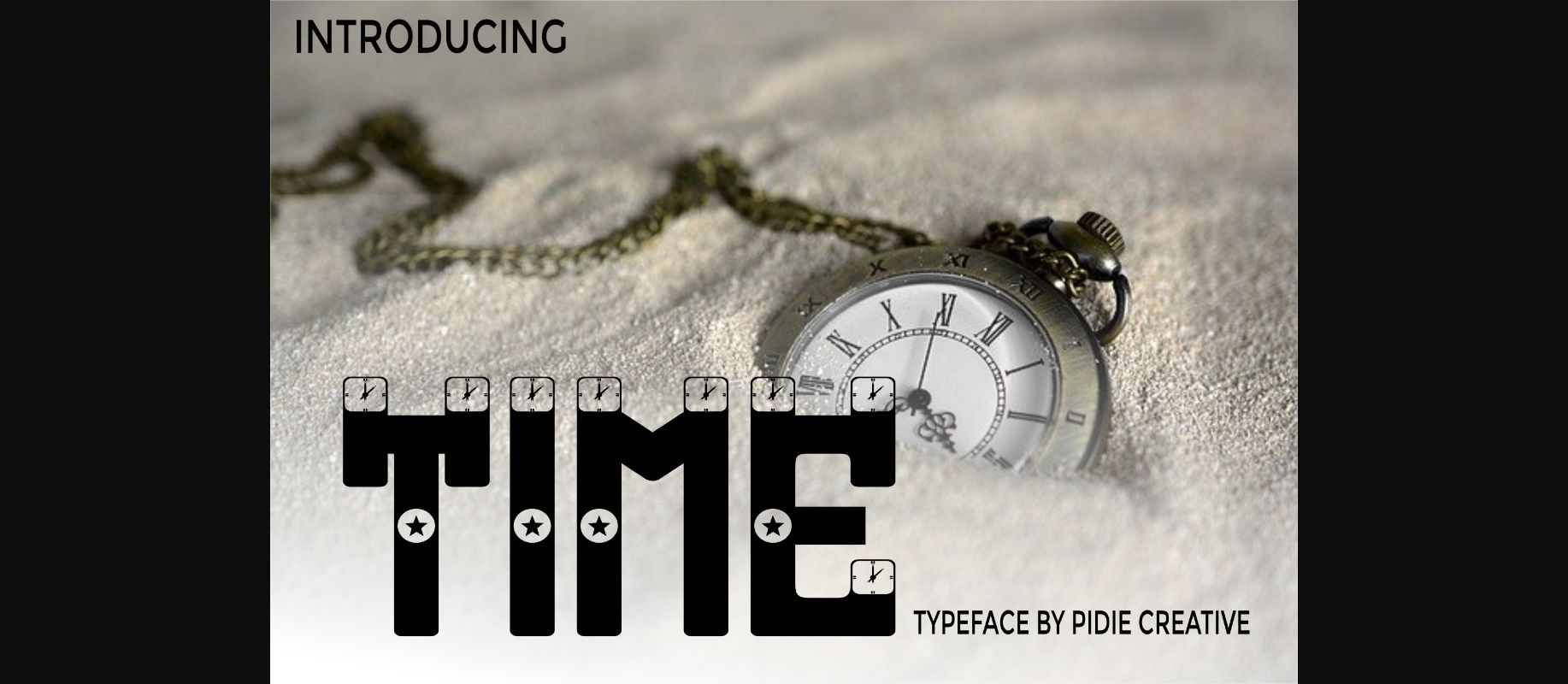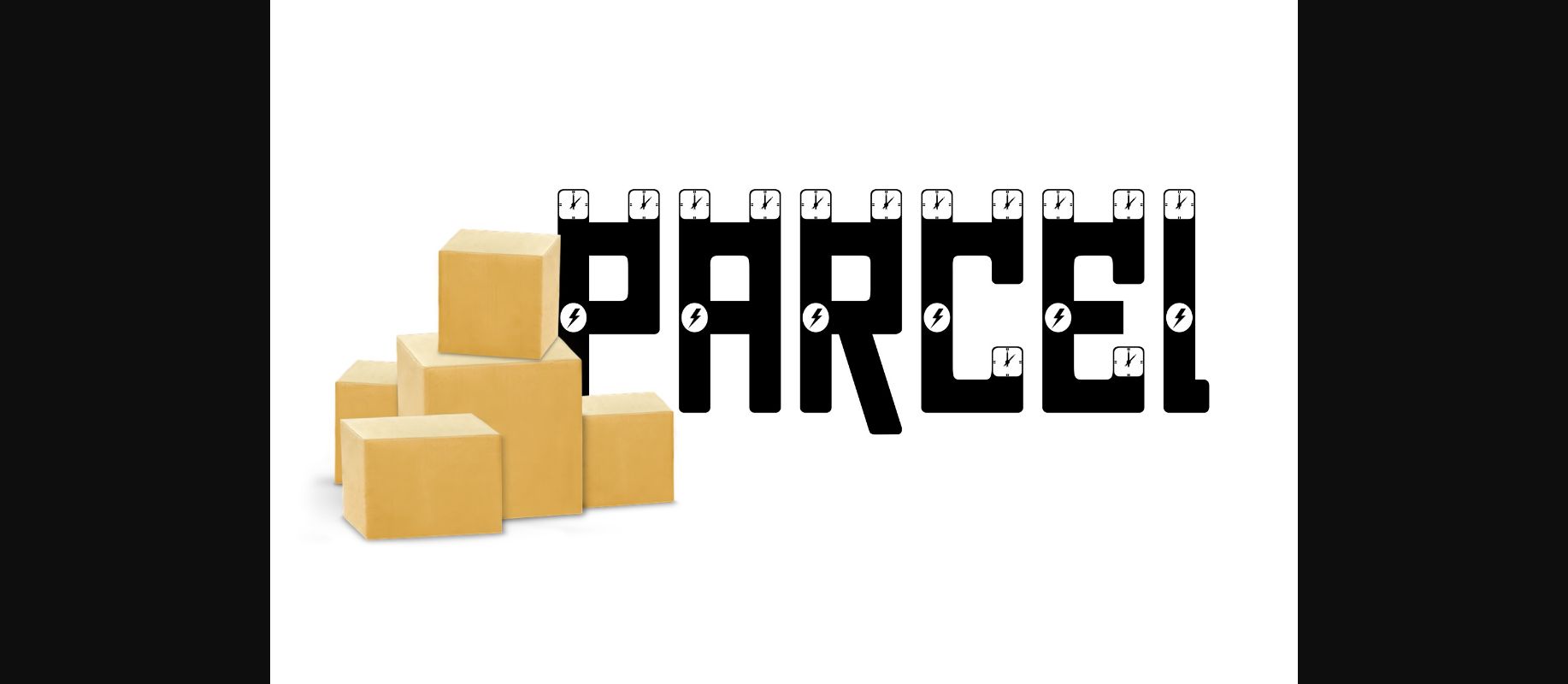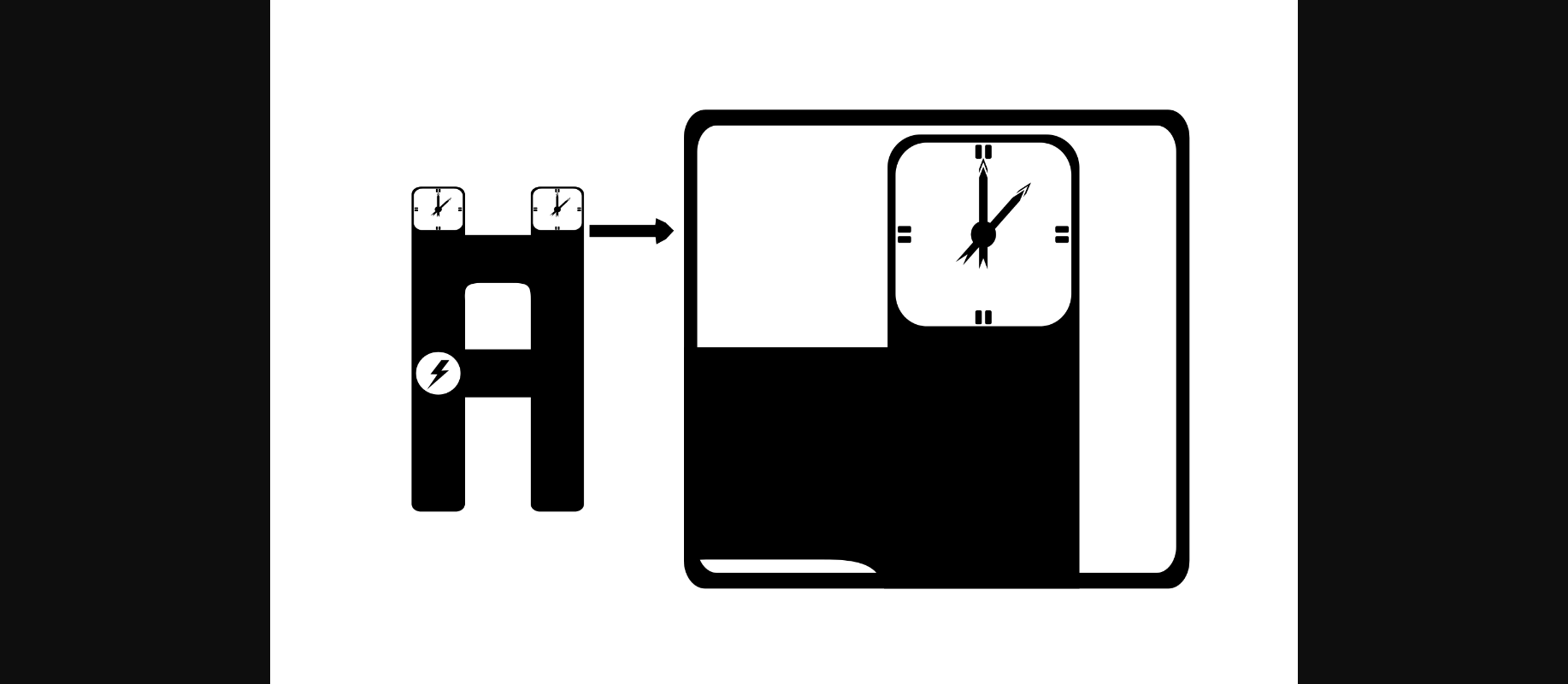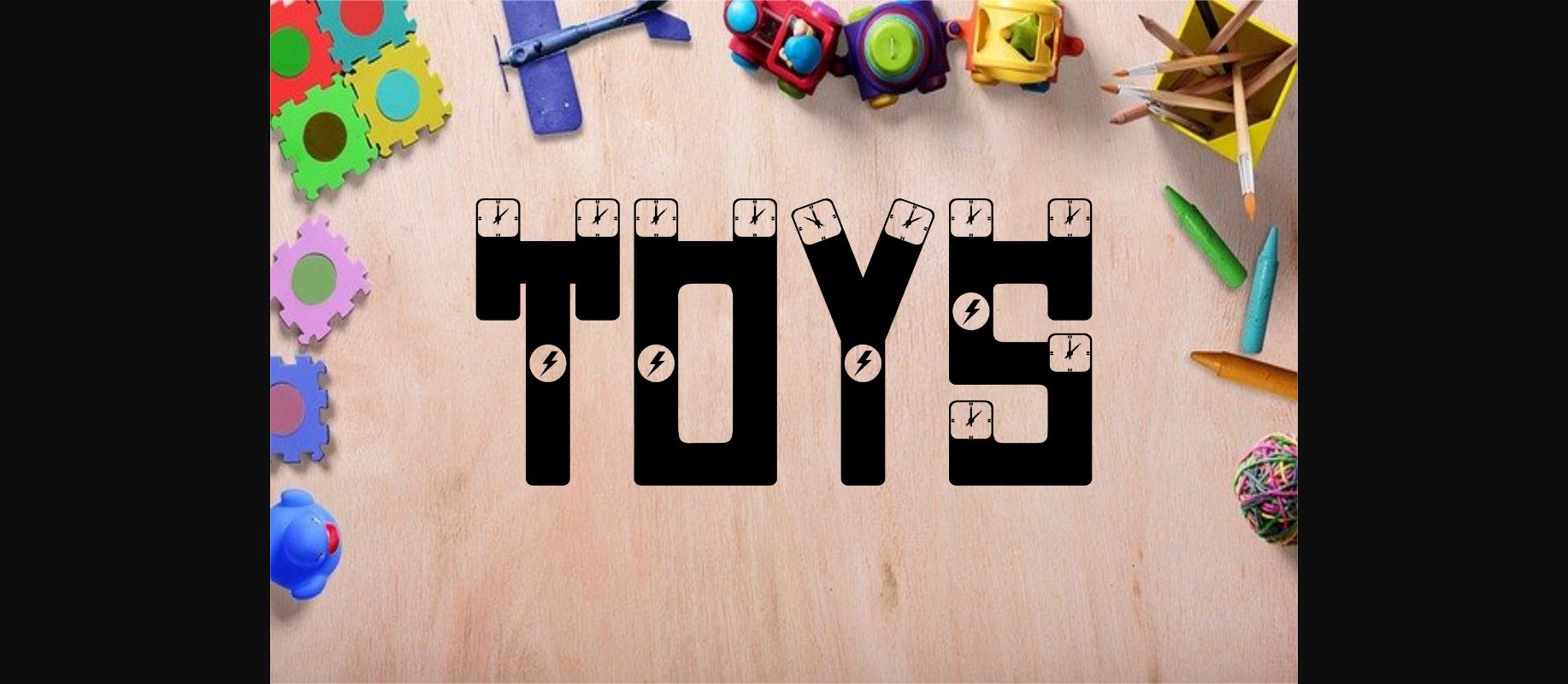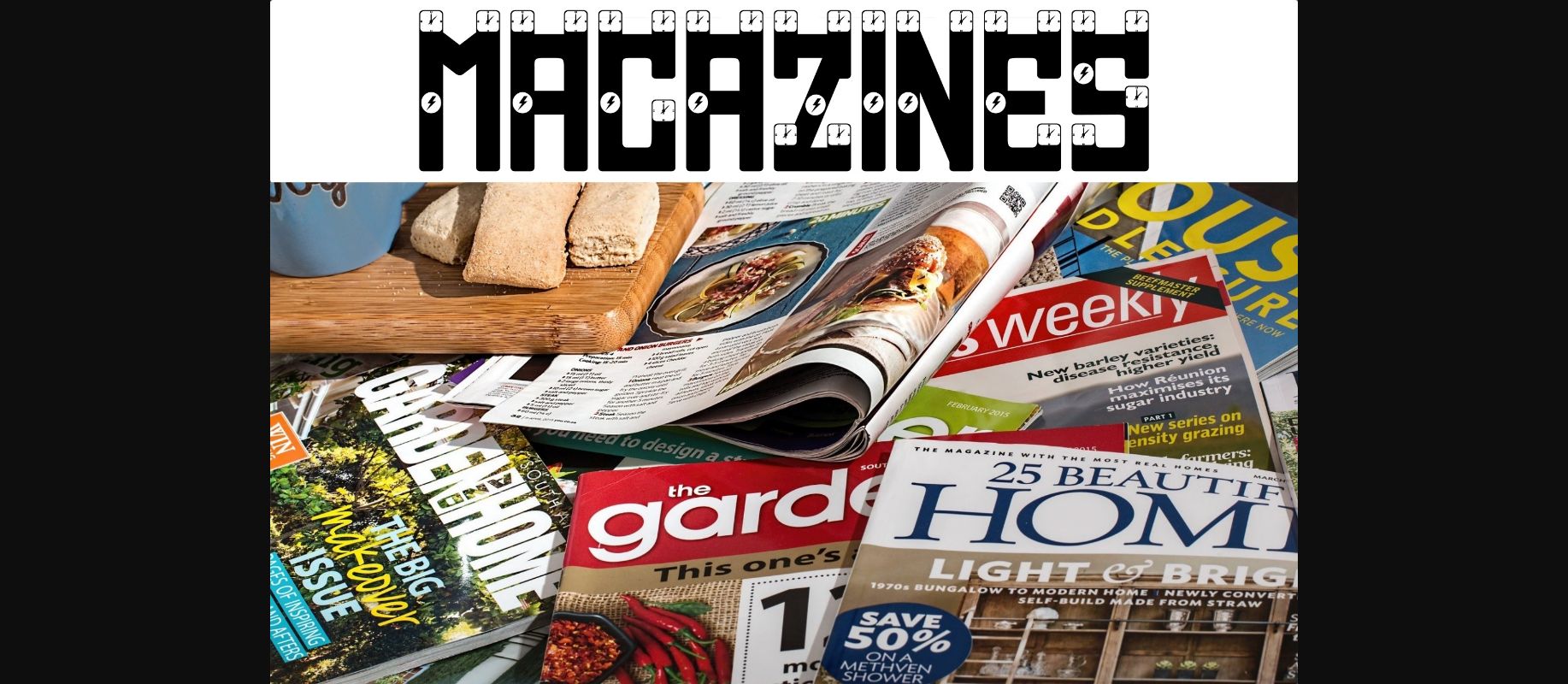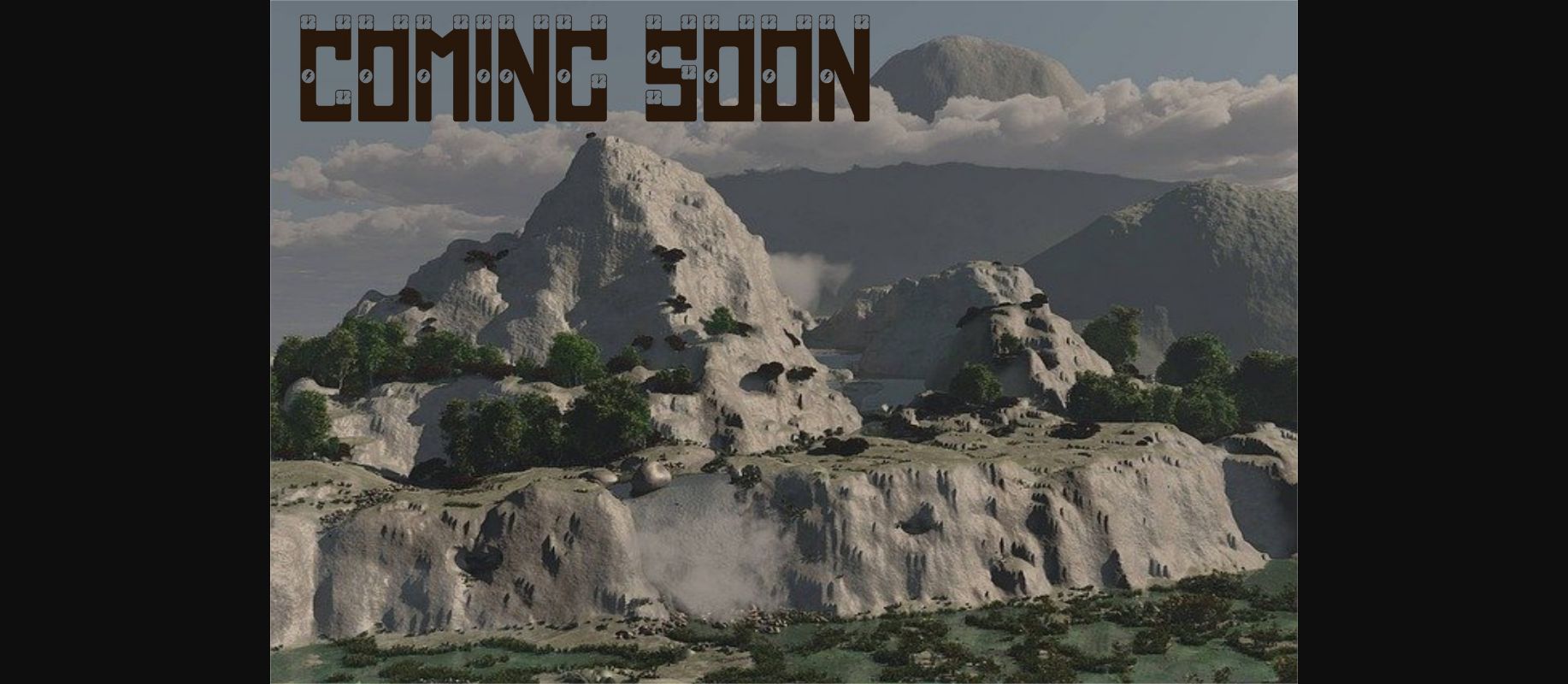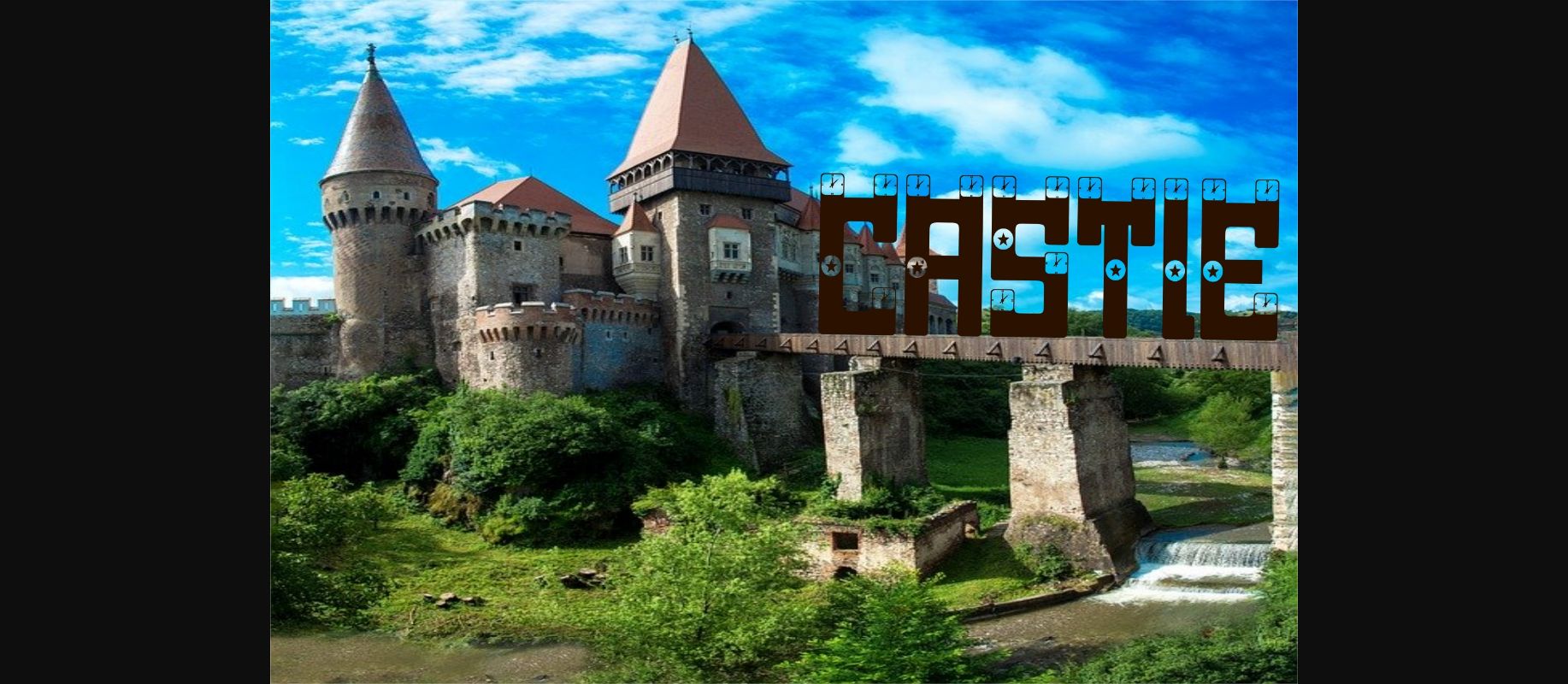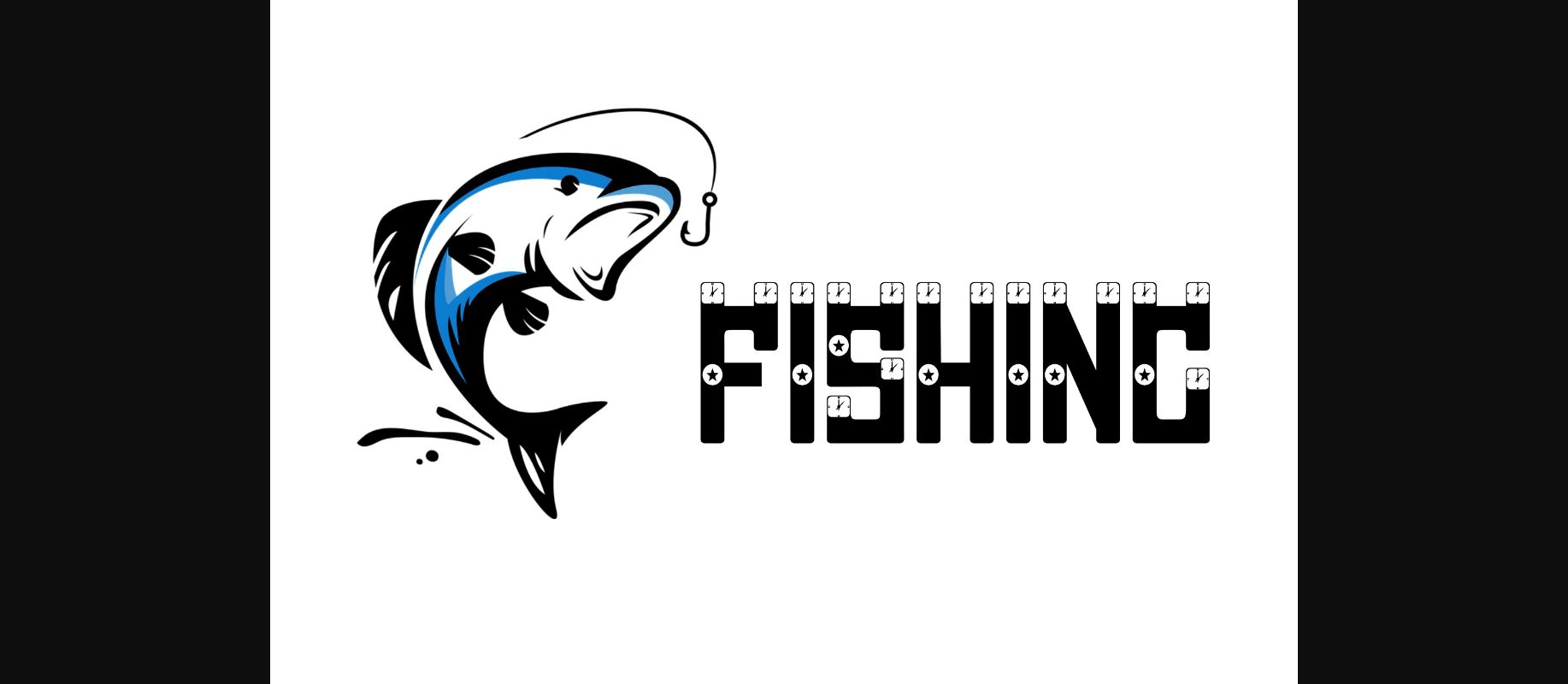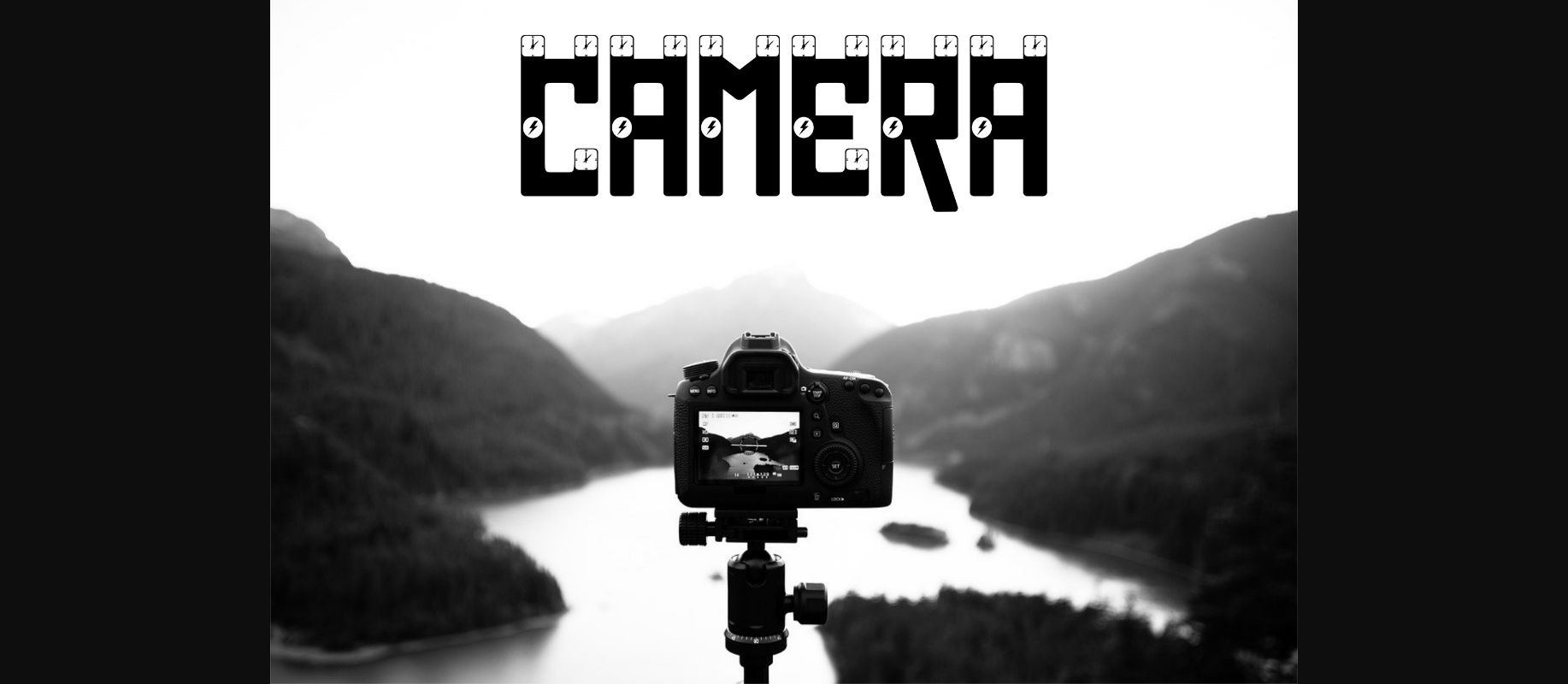
Time Font
About Time Font
Time is a particularly detailed decorative font because each character is embellished with clock ornaments with a unique time display on each letter.